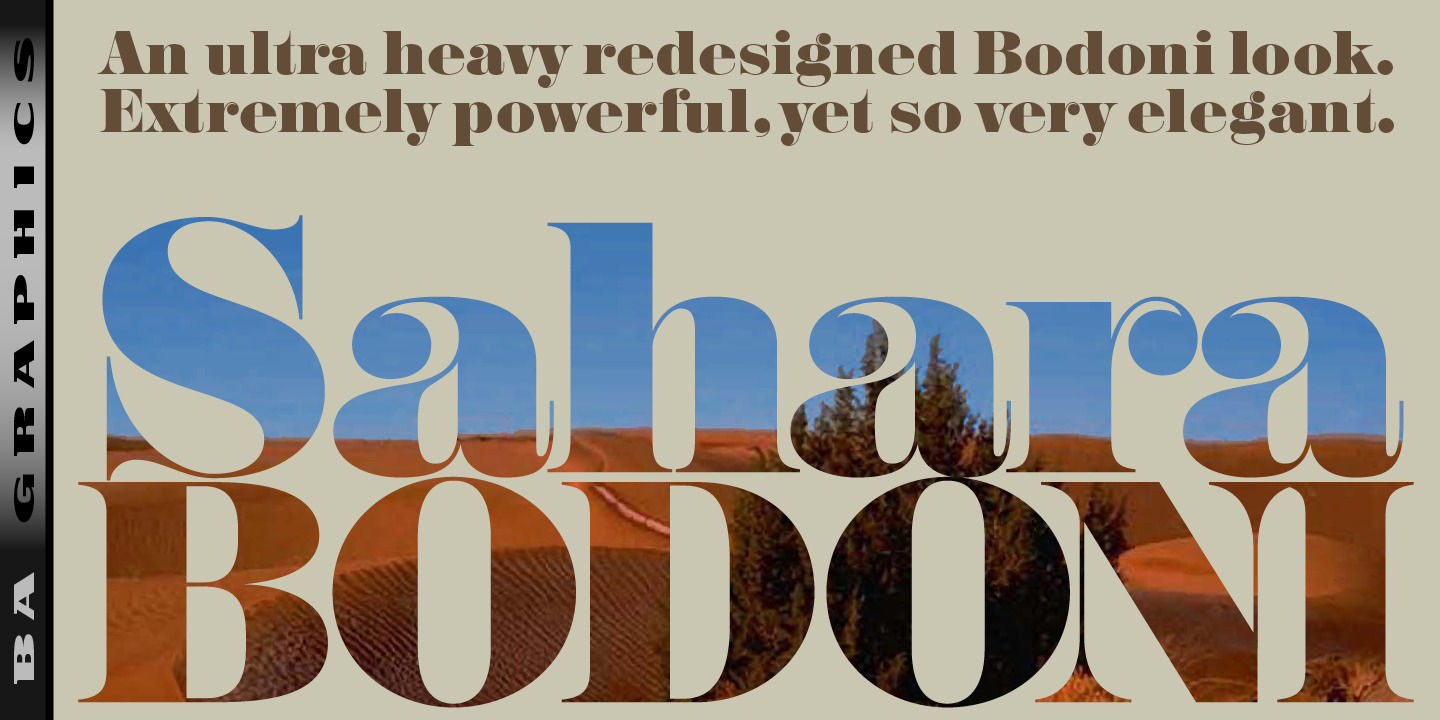
Sahara Bodoni Font Free Download is a classic serif typeface that combines elegance with bold contrast, perfect for creating striking and sophisticated designs. Please note: you must purchase a license for commercial use — this font is available as a free download strictly for personal and testing purposes.
Ideal for fashion magazines, luxury branding, editorial headlines, invitations, and packaging, Sahara Bodoni Font Free Download brings a timeless and refined touch to your projects.
What makes this font exciting is its high contrast between thick and thin strokes, sharp serifs, and graceful curves, delivering a blend of modernity and tradition that captivates attention.
The Sahara Bodoni font family includes Regular, Italic, Bold, and Bold Italic styles, offering a versatile range for expressive typography.
If you want to infuse your designs with classic beauty and bold elegance, Sahara Bodoni Font Free Download is the perfect choice. Download it today, explore its sophisticated style, and elevate your creative work with confidence.